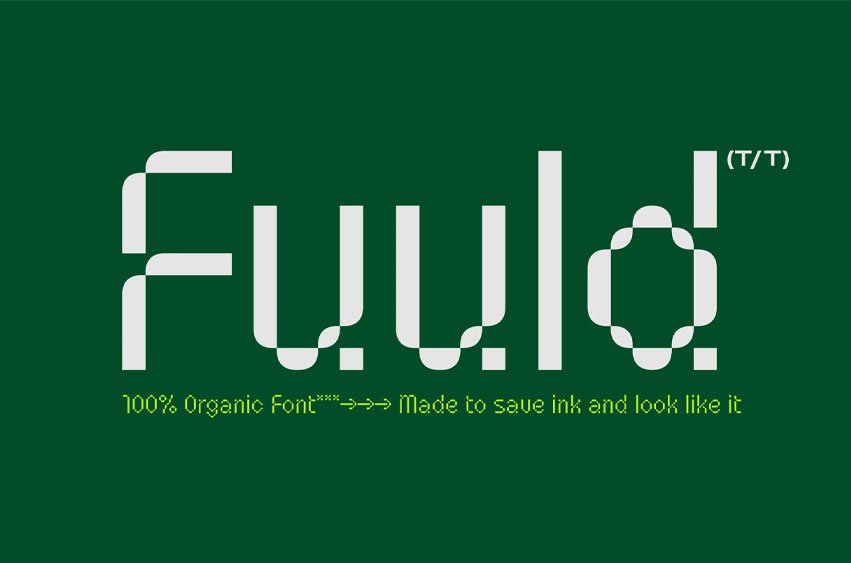
Fuuld Font is a bold modern display font that mixes organic and geometric, hand made, and digital production. it has a contemporary look perfect for logos, posters, branding, magazines, and avant garde social media accounts be it instagram, TikTok, or whatever.
The cool thing about this font besides how cool it looks is that it uses less ink than a regular font in its weight. this makes it perfect for any environmentally conscious print projects. try the font with no fill and a stroke for a whole new style